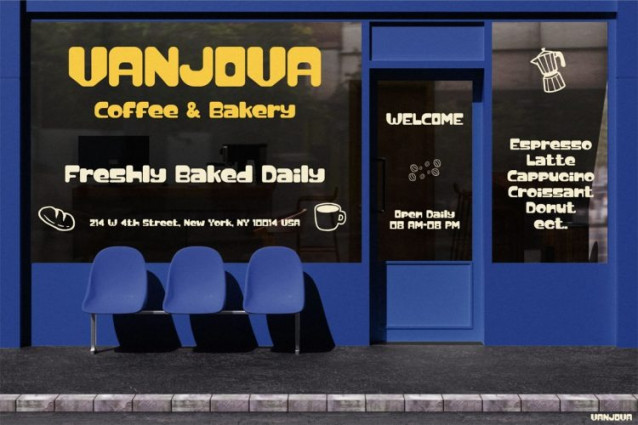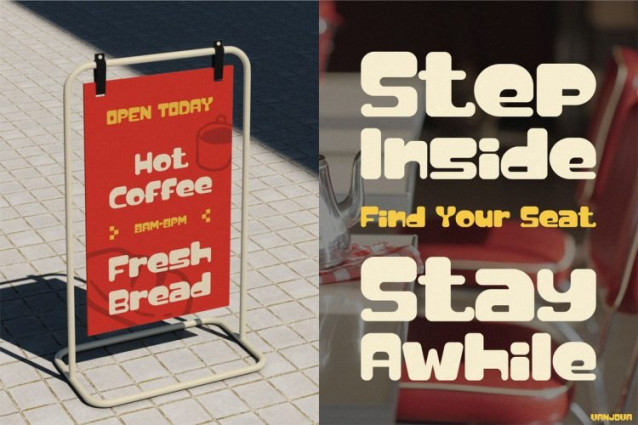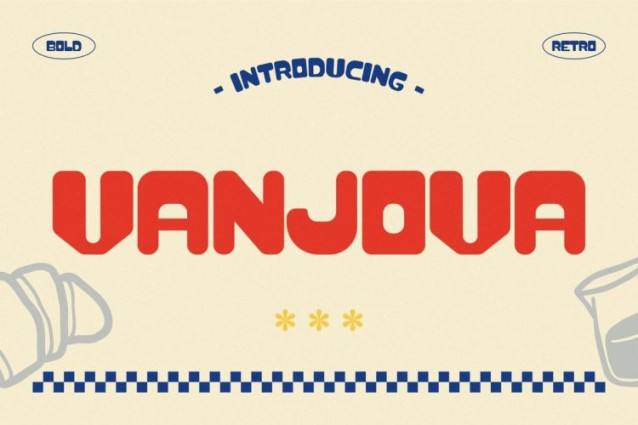
Vanjova Font
Vanjova Font bursts with bold personality and nostalgic charm, making it instantly eye-catching and memorable. From the very first look, this font delivers a strong retro vibe inspired by classic diners, coffee shops, and vintage storefront signage. Its chunky letterforms, rounded edges, and confident weight create a warm commercial rhythm that feels friendly, expressive, and highly readable. Moreover, VANJOVA balances playful energy with structure, which allows it to shine in both loud promotions and clean layouts. As a result, your message feels bold, approachable, and full of character.
In addition, Retro Font VANJOVA works exceptionally well in real-world applications. The font performs strongly on menus, packaging, posters, and branding materials. At the same time, it stays clear and impactful on digital platforms such as Instagram, ads, and banners. Because of its strong contrast and compact shapes, VANJOVA grabs attention quickly, even from a distance. Therefore, it becomes an excellent choice for designs that must communicate fast and leave a lasting impression.
Retro Font VANJOVA is a bold display typeface designed for commercial impact and visual storytelling. First, its retro-inspired forms evoke warmth and nostalgia. Then, its solid construction ensures high readability across sizes. Furthermore, the font pairs perfectly with vibrant colors, flat illustrations, and playful layouts. Because of this, designers can easily build strong visual identities that feel energetic and authentic. In addition, VANJOVA supports branding, packaging, signage, merchandise, and promotional campaigns. Ultimately, it helps brands express confidence, friendliness, and bold taste through typography.
Retro Font VANJOVA is ideal for coffee shops, bakeries, cafés, food trucks, and retail brands. Likewise, it suits designers working on packaging, menu boards, labels, and promotional posters. Moreover, content creators, small business owners, and Instagram marketers will appreciate its bold presence and easy readability. If your brand values warmth, personality, and retro appeal, VANJOVA is a perfect match. Therefore, this font works best for projects that aim to feel bold, fun, and commercially strong.
In conclusion, Retro Font VANJOVA turns simple words into bold visual statements. Because it blends retro charm with modern clarity, it helps brands stand out instantly. Choose VANJOVA today and give your designs a confident, nostalgic voice that sells.